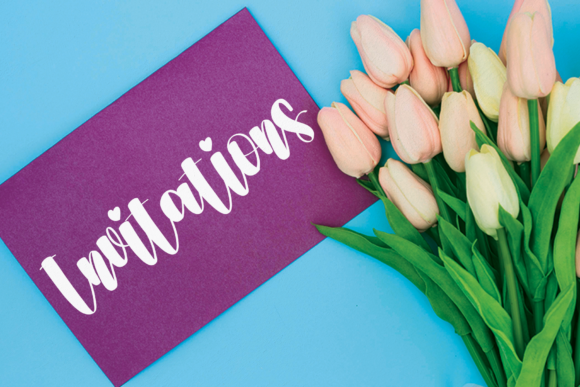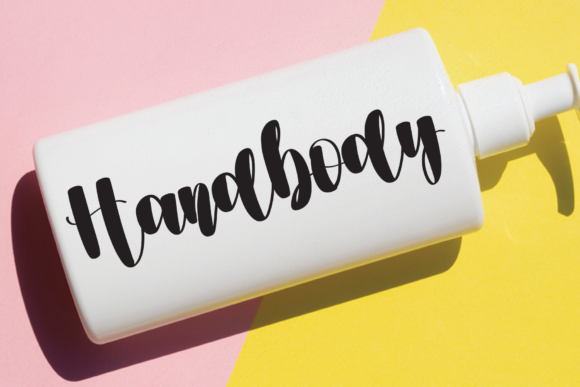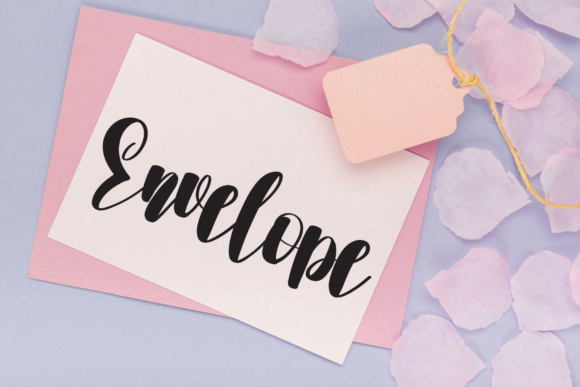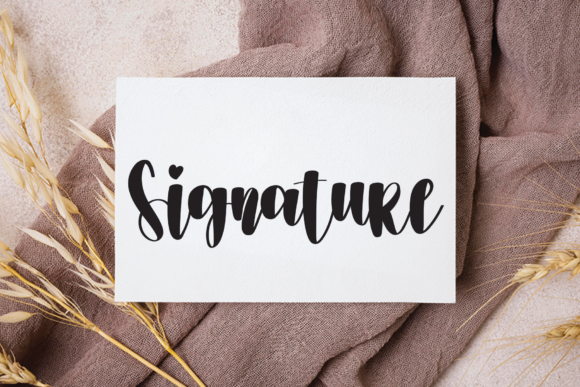
The Perfect Script Font for Your Dream Wedding Invitations
Have you ever stumbled upon the perfect font for a design project, and suddenly, your creative vision comes to life? It’s that magical moment when everything falls into place, and your idea shines like never before. For many designers, this experience is a regular occurrence, especially when working with the right tools. If you’re looking to elevate your wedding invitations or any other special occasion design, I’m excited to introduce you to the Hello Wedding Font.
This lovely script font is designed to add a touch of whimsy and romance to your creations. Its charming, playful characters seem to dance along the baseline, making it a perfect addition to any design. By incorporating the Hello Wedding Font into your work, you’ll be able to take your designs to the next level and make them truly stand out.
Hello Wedding Font Key Features
- Font Family: Hello Wedding is a unique, hand-painted script font designed specifically for wedding invitations and other special occasions.
- Unique Characteristics: The font features beautiful, hand-painted brushstrokes, subtle texture, and elegant flair, making it perfect for adding a personal touch to wedding invitations and other special occasions.
Hello Wedding Font Review
Overall, I’d say the Hello Wedding Font is a lovely addition to any wedding design. It’s perfect for creating a whimsical and romantic atmosphere, making it ideal for invitations, wedding stationery, and even decorative elements.
- Beautiful, elegant script font that evokes a sense of romance and whimsy.
- Works well for both digital and printed designs.
- Pairs nicely with a variety of design styles, from rustic to modern.
- Includes a range of ligatures and swashes to add extra flair to your designs.
- Limited character set, which may not be suitable for longer text blocks.
- Not as versatile as some other script fonts, which can make it feel a bit restrictive.
In terms of overall impression, I’d say the Hello Wedding Font is a solid choice for wedding designers. While it may not be perfect for every project, it’s a lovely addition to any wedding design. With a bit of creativity and experimentation, you can create some truly stunning designs that will leave a lasting impression on your clients.
Tips for Getting the Most Out of Hello Wedding Font
To get the most out of Hello Wedding Font, consider the following tips:
- Use it for wedding invitations, save-the-dates, and other wedding stationery.
- Pair it with elegant graphics and images for a romantic look.
Common Use Cases for Hello Wedding Font
Hello Wedding Font is ideal for:
- Wedding invitations and save-the-dates.
- Wedding stationery, such as thank-you cards and gift
Alternatives to Hello Wedding Font
Great Vibes is a beautiful, handwritten font perfect for wedding invitations and stationery. It’s a great choice for designers who want to add a touch of elegance and sophistication to their designs. Great Vibes is more versatile than Hello Wedding Font, making it suitable for a wide range of design projects. However, it’s more complex and may require more skill to use effectively.
Carolyna Pro is a modern, elegant font designed specifically for wedding invitations and stationery. It’s a great choice for designers who want to create a sophisticated and luxurious look. Carolyna Pro is more formal than Hello Wedding Font, making it suitable for high-end weddings and special occasions. However, it may be less versatile than Hello Wedding Font.